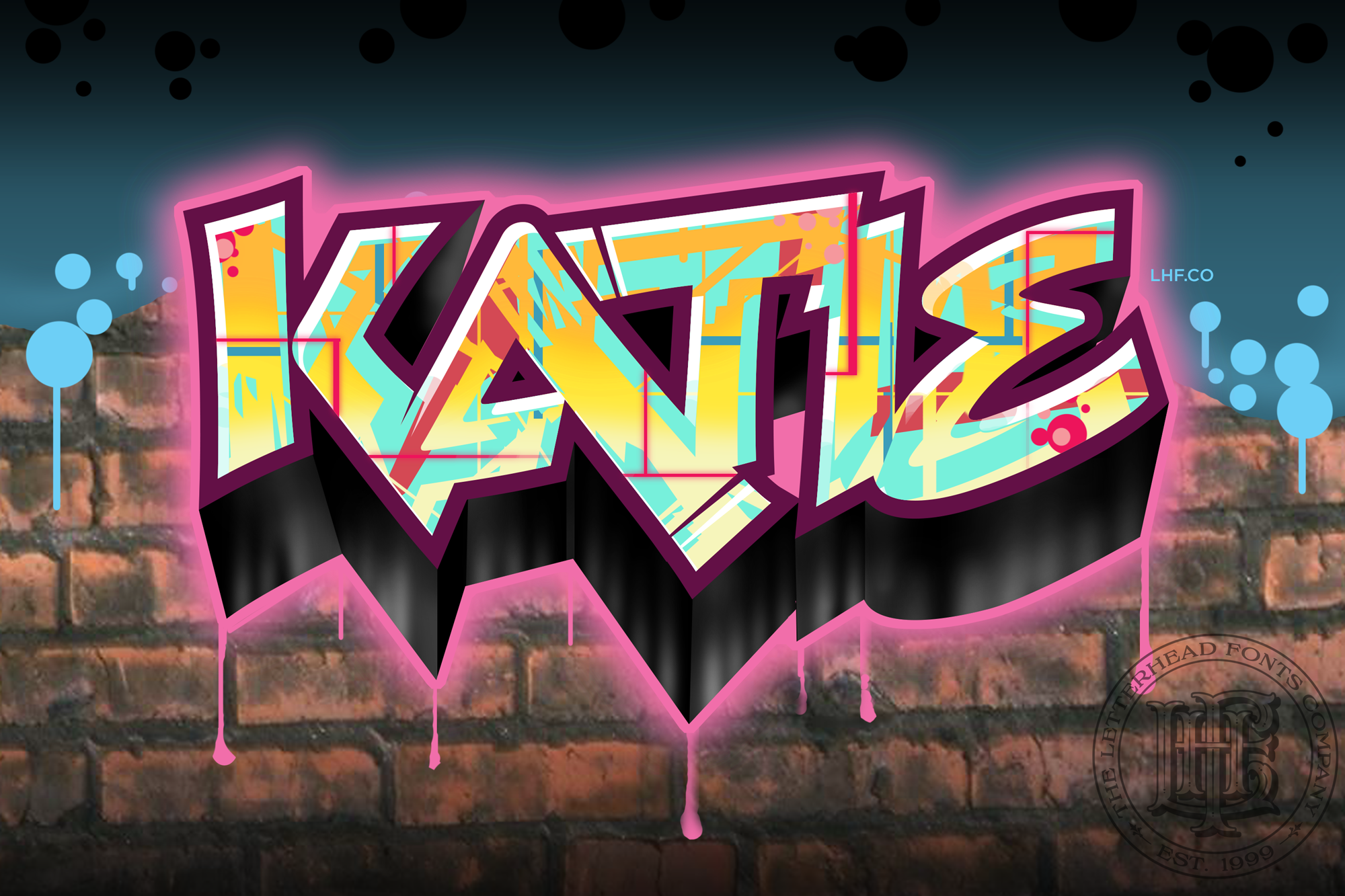
Old school graffiti style. Two part font: Use "Menace Base" alone or place "Menace Convex" on top for a 3D effect (see instructions below). Kern tight for best results. Check out the "Easy Highlights" tip using Menace. You might also like: Magnum 44 & No Fishin.